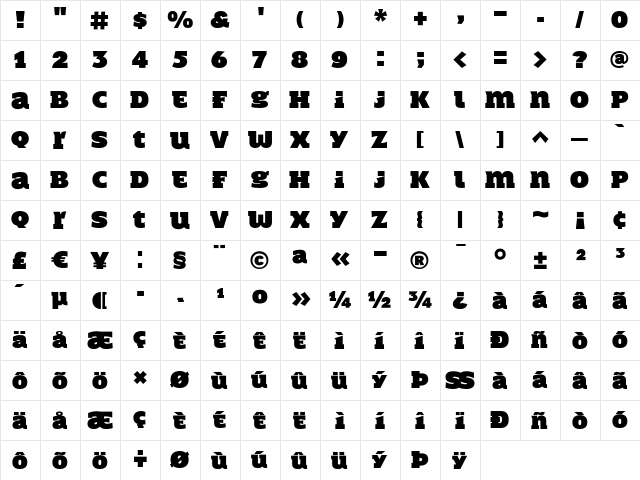
Shire Regular
Design Context for Shire Typeface
Shire offers clean, dependable letterforms without strong stylistic allegiance, making it a practical choice for designers who need flexibility.
Pro Tip: Use Shire in both headline and body roles to test its range before committing to a single application.